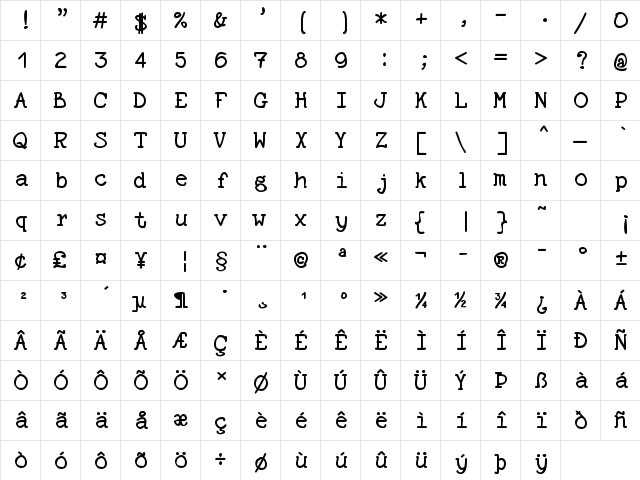
zai Pencil Typewriter Regular
| Foundry | ZAI |
| Designer | Tomasz Skowroֳki |
Design Context for zai Pencil Typewriter Typeface
zai Pencil Typewriter uses fixed-width spacing throughout, giving it the structured, systematic character associated with coding environments and technical documentation.
Well-suited to data-driven dashboards, coding tutorials, and any design that wants to reference the world of programming.
Pro Tip: Use zai Pencil Typewriter with slightly increased line-height for extended reading — fixed-width spacing can feel dense in longer passages without extra breathing room.